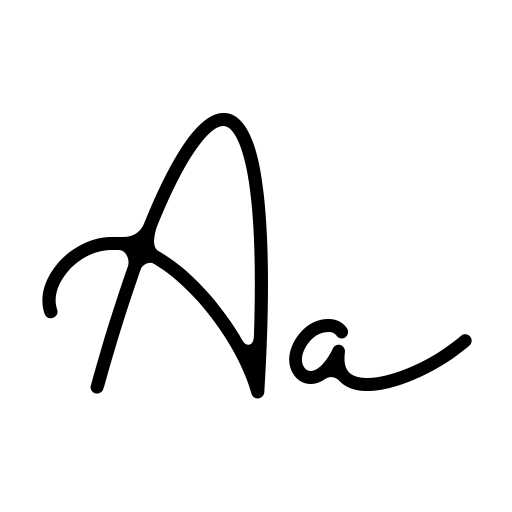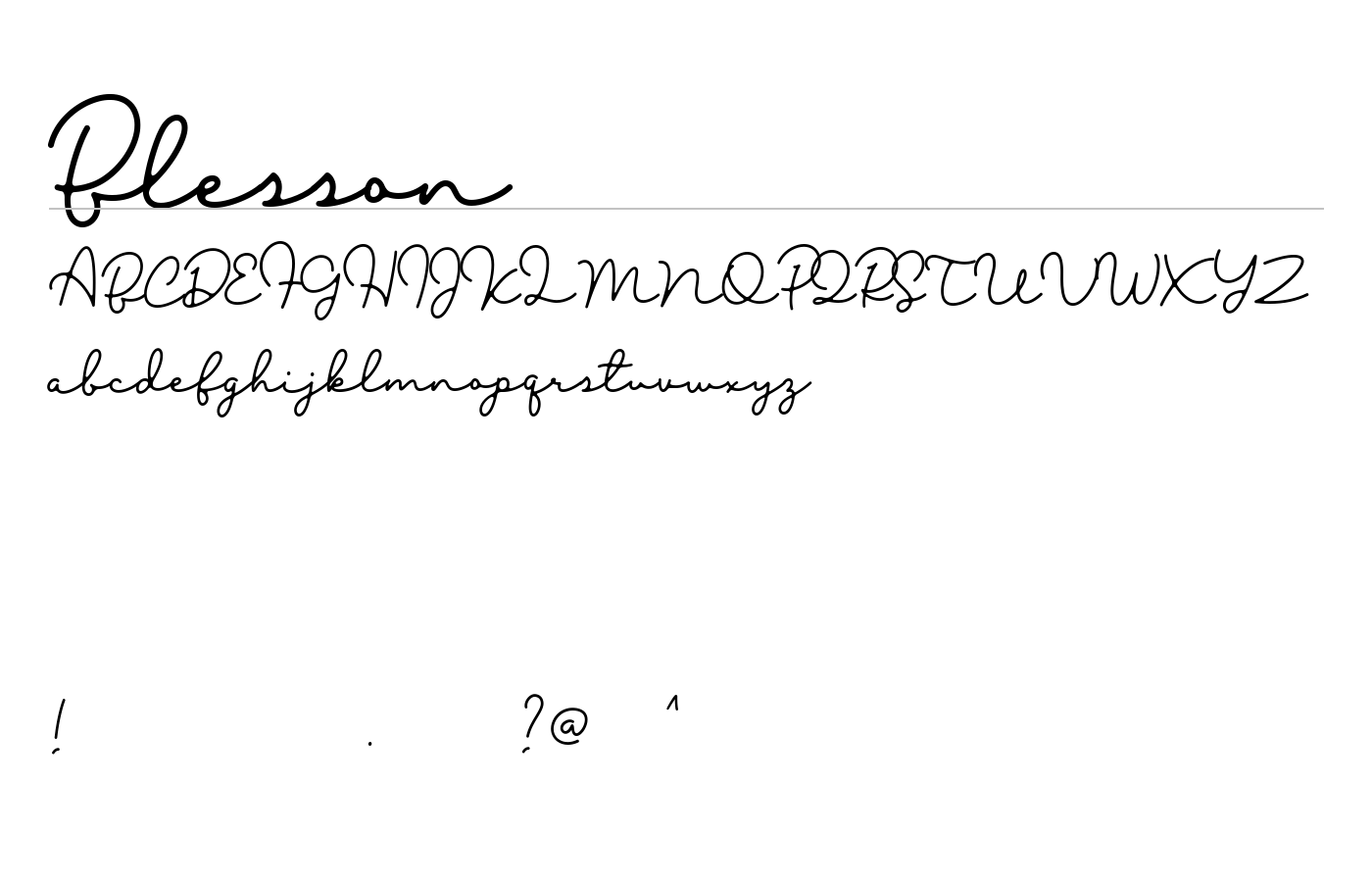
Blesson Font is a delicate and elegant script typeface that mimics smooth, continuous handwriting with a light weight and narrow width, giving it a refined and airy feel. Its flowing letterforms and playful loops make it perfect for adding a personal, stylish touch to invitations, branding, and creative projects where a handwritten charm is desired. This font works beautifully in designs that seek a modern yet approachable and graceful aesthetic.
Blesson Font
About Blesson Font
| Font family | Blesson Font |
| Designer | Sronstudio |